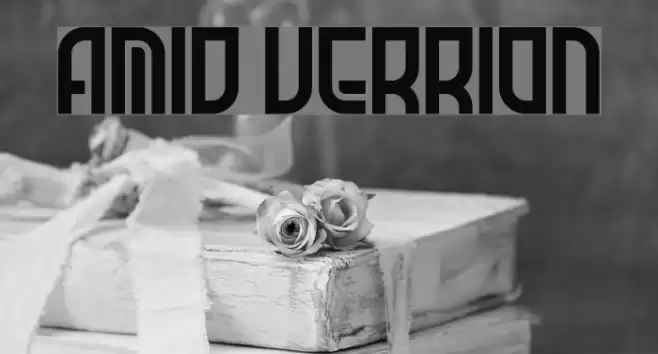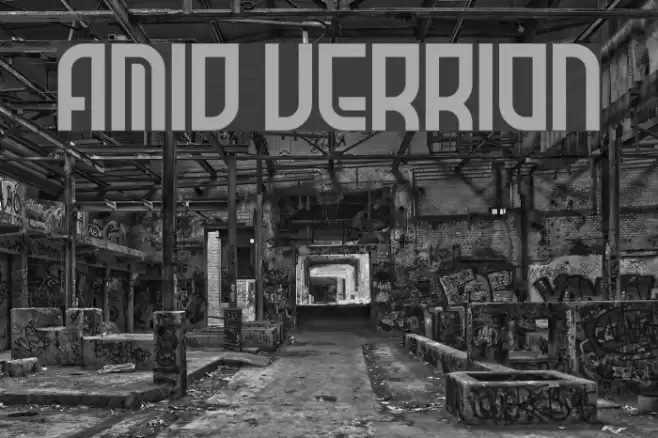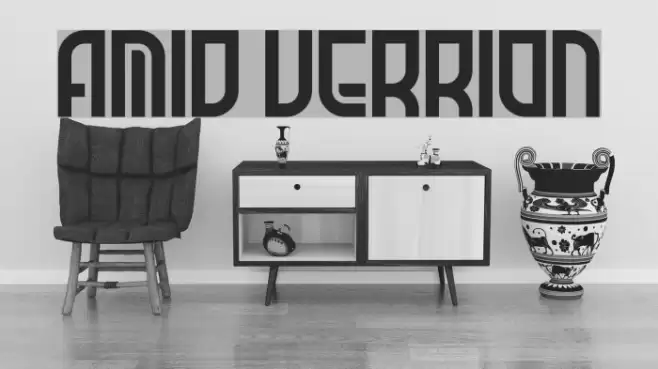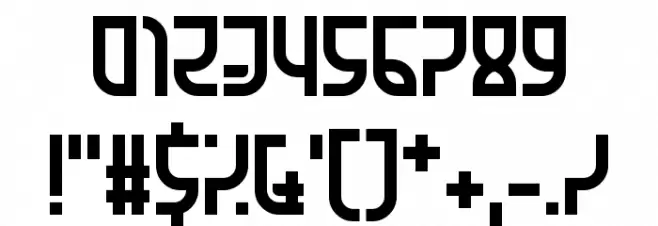
Amid Verrion Font
Amid Verrion Description
This font features a bold and geometric design with a futuristic flair. The characters are constructed with thick, uniform strokes that create a strong visual impact. The angular and blocky shapes give it a modern and industrial feel, while the consistent stroke weight across all characters ensures a cohesive appearance. The uppercase and lowercase letters maintain a similar structure, enhancing readability and uniformity. The numerals and special characters follow the same design principles, making them easily recognizable and visually compatible with the alphabetic characters.